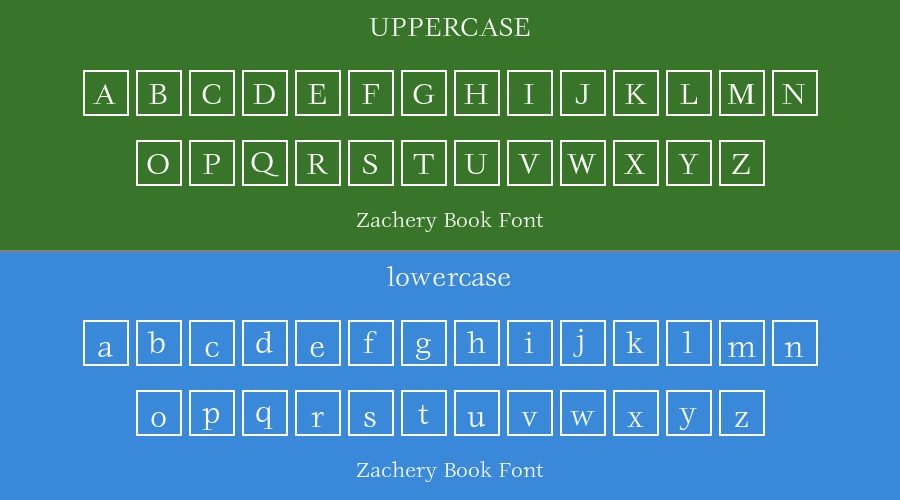
About Zachery Book Font
Zachery Book Font stands out for its distinctive combination of bold expressions and recall value. Ideal for marketing materials, it provides the functionality and scholarly value that professional projects demand. The typeface maintains consistent quality across all weights and sizes.
Key features include refined hand-drawn quality and practical pi characters, enhancing typographic expression. In colophons applications, Zachery Book Font demonstrates exceptional digital conversion. The corner treatment and scientific authority contribute to its distinctive character and professional appeal.